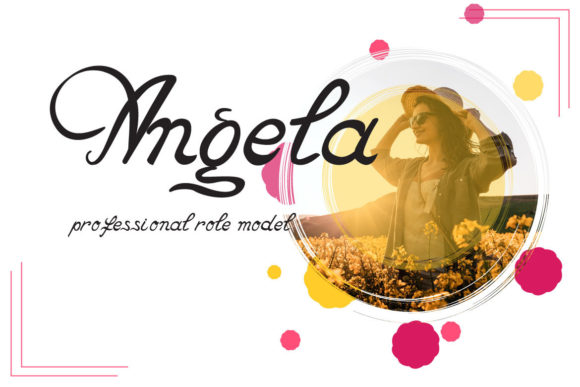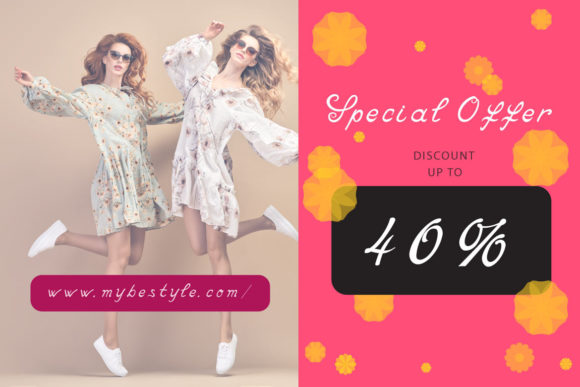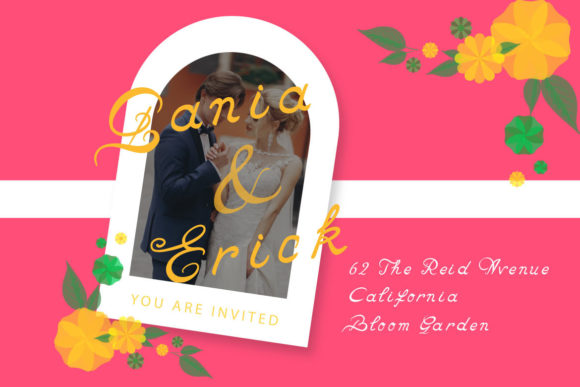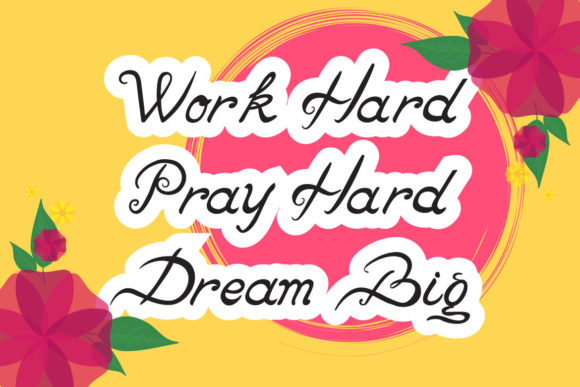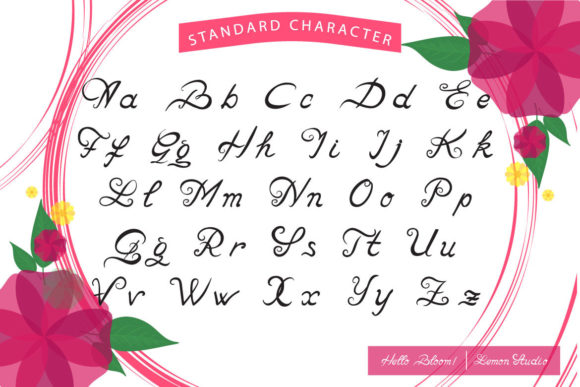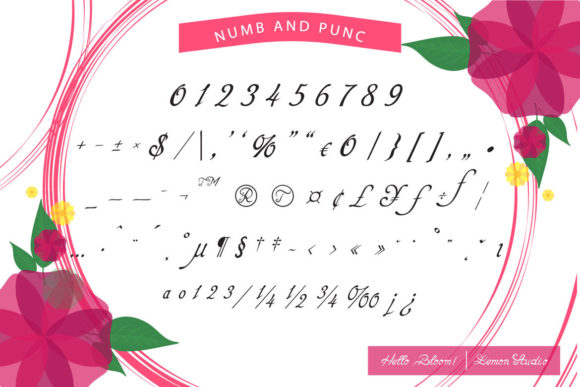
Introducing Hello Bloom Font: The Fresh & Modern Handwritten Font for Creative Projects
Are you tired of using the same old fonts for your designs? Do you want to add a touch of personality and elegance to your creative projects? Look no further than Hello Bloom Font, a fresh and modern handwritten font that’s perfect for designers and crafters alike. With its unique characters and versatile style, Hello Bloom Font is sure to elevate your designs and make them stand out from the crowd.
What Makes Hello Bloom Font Special?
Hello Bloom Font is a beautifully crafted handwritten font that’s designed to add a touch of sophistication and whimsy to your designs. Its unique characters and flowing lines make it perfect for a wide range of creative projects, from invitations and greeting cards to branding materials and posters. Whether you’re a designer, crafter, or DIY enthusiast, Hello Bloom Font is a versatile and stylish choice that’s sure to inspire your creativity.
Uses for Hello Bloom Font
So, what can you use Hello Bloom Font for? The possibilities are endless! Here are just a few ideas to get you started:
- Invitations: Use Hello Bloom Font to create beautiful and elegant invitations for weddings, parties, and other special occasions.
- Greeting Cards: Add a personal touch to your greeting cards with Hello Bloom Font’s unique and charming characters.
- Branding Materials: Use Hello Bloom Font to create eye-catching branding materials, such as logos, business cards, and letterheads.
- Posters: Create stunning posters with Hello Bloom Font’s bold and eye-catching style.
- Quotations: Use Hello Bloom Font to add a touch of elegance and sophistication to your quotations and inspirational quotes.
- Covers: Use Hello Bloom Font to create beautiful and eye-catching covers for books, magazines, and other publications.
- Headings: Add a touch of style and sophistication to your headings and titles with Hello Bloom Font’s unique and modern style.
Why Choose Hello Bloom Font?
So, why choose Hello Bloom Font over other fonts? Here are just a few reasons:
- Unique Characters: Hello Bloom Font features unique and charming characters that will add a touch of personality to your designs.
- Modern Style: Hello Bloom Font has a fresh and modern style that’s perfect for designers and crafters who want to stay on-trend.
- Versatile: Hello Bloom Font is versatile and can be used for a wide range of creative projects.
- Elegant: Hello Bloom Font has an elegant and sophisticated style that’s perfect for designs that require a touch of refinement.
Tips for Using Hello Bloom Font
Here are a few tips for using Hello Bloom Font:
- Use it sparingly: Hello Bloom Font is a statement font, so use it sparingly to add emphasis and impact to your designs.
- Pair it with other fonts: Hello Bloom Font pairs well with other fonts, so don’t be afraid to experiment with different combinations.
- Experiment with colors: Hello Bloom Font looks great in a variety of colors, so experiment with different colors to find the one that works best for your design.
Hello Bloom Font is a fresh and modern handwritten font that’s perfect for designers and crafters who want to add a touch of personality and elegance to their creative projects. With its unique characters, versatile style, and elegant charm, Hello Bloom Font is sure to elevate your designs and make them stand out from the crowd. So why wait? Try Hello Bloom Font today and see the difference it can make in your designs!